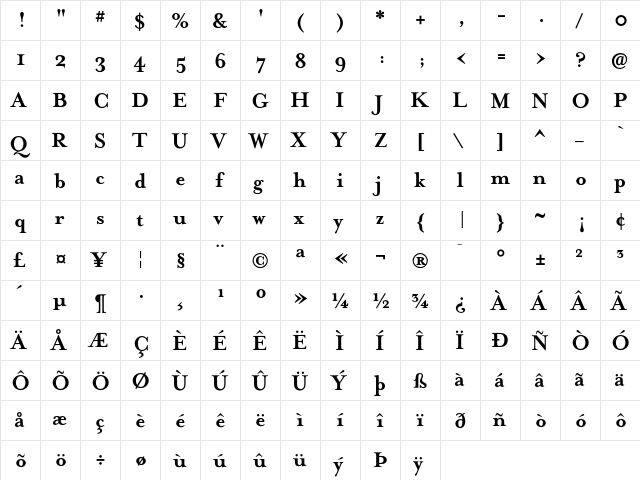
MrsEaves Bold
Bold ·  Emigre Graphics, Designed by Zuzana Licko  ·
Year 1996
Foundry  Emigre Graphics, Designed by Zuzana Licko
Design Context for MrsEaves Typeface
MrsEaves offers clean, dependable letterforms without strong stylistic allegiance, making it a practical choice for designers who need flexibility. The heavy weight commands attention and anchors typographic hierarchies.